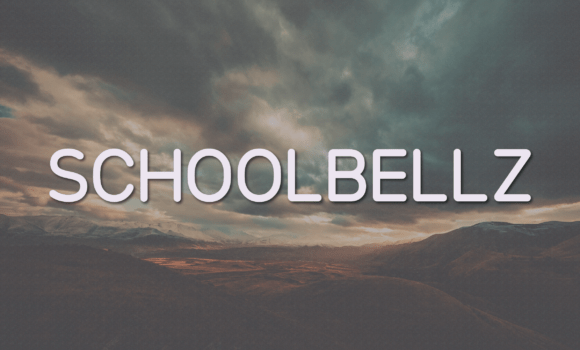
schoolbellz
Schoolbellz Font – Free Download Introduction to Schoolbellz Font Schoolbellz is a bold, modern, all caps sans-serif font designed for clean, impactful visuals. 📸 Preview Gallery 3 images 📌 Product Name Schoolbellz Font 👤 Author A Christie 📂 Category Explore